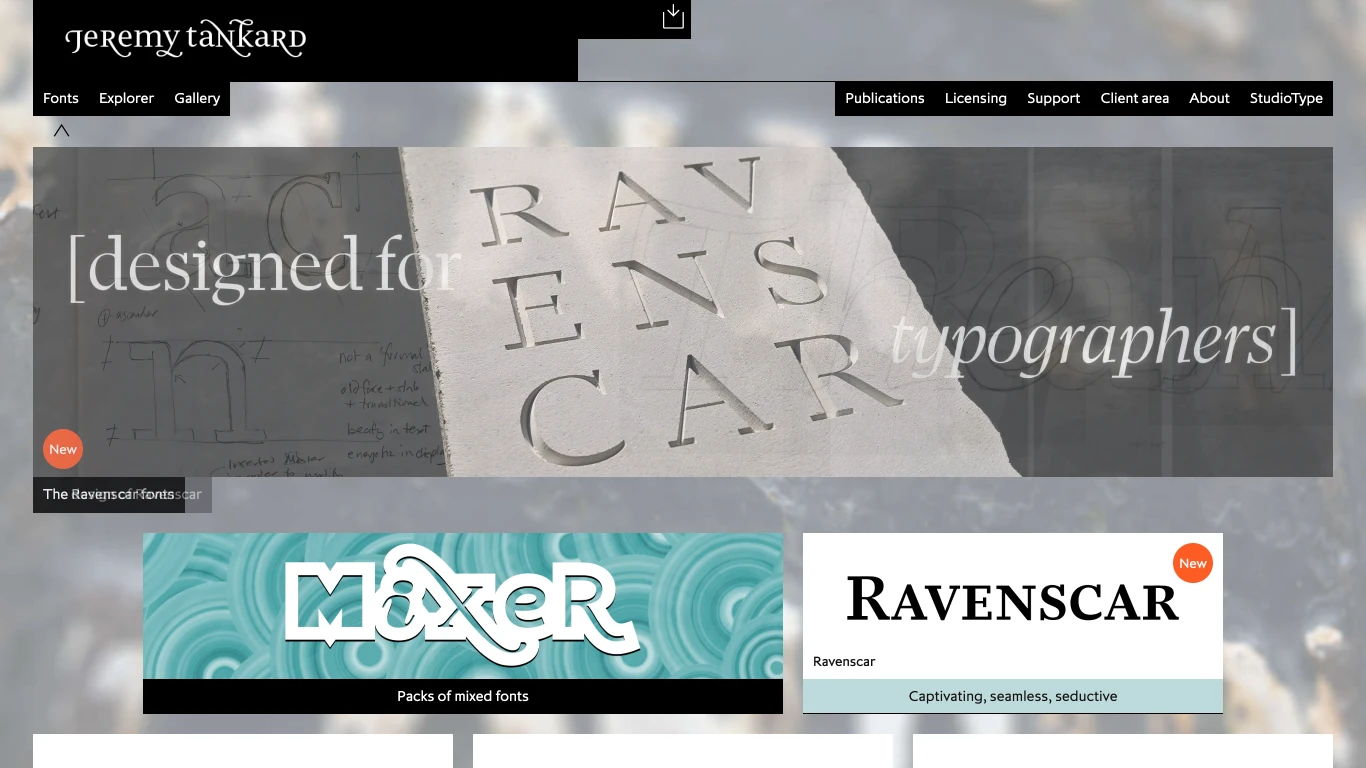
Jeremy Tankard Typography
United Kingdom
1998
Jeremy Tankard Typography is an independent digital type foundry established in 1998 by British designer Jeremy Tankard. The foundry specializes in crafting original and unique type designs that balance technological innovation with typographic tradition. Notable typefaces from Jeremy Tankard Typography include Pembroke, a geometric sans with a crisp, clean feel; Redisturbed, a unicase design developed from the history of alphabetical reform; and Kingfisher, an elegant and sophisticated serif.